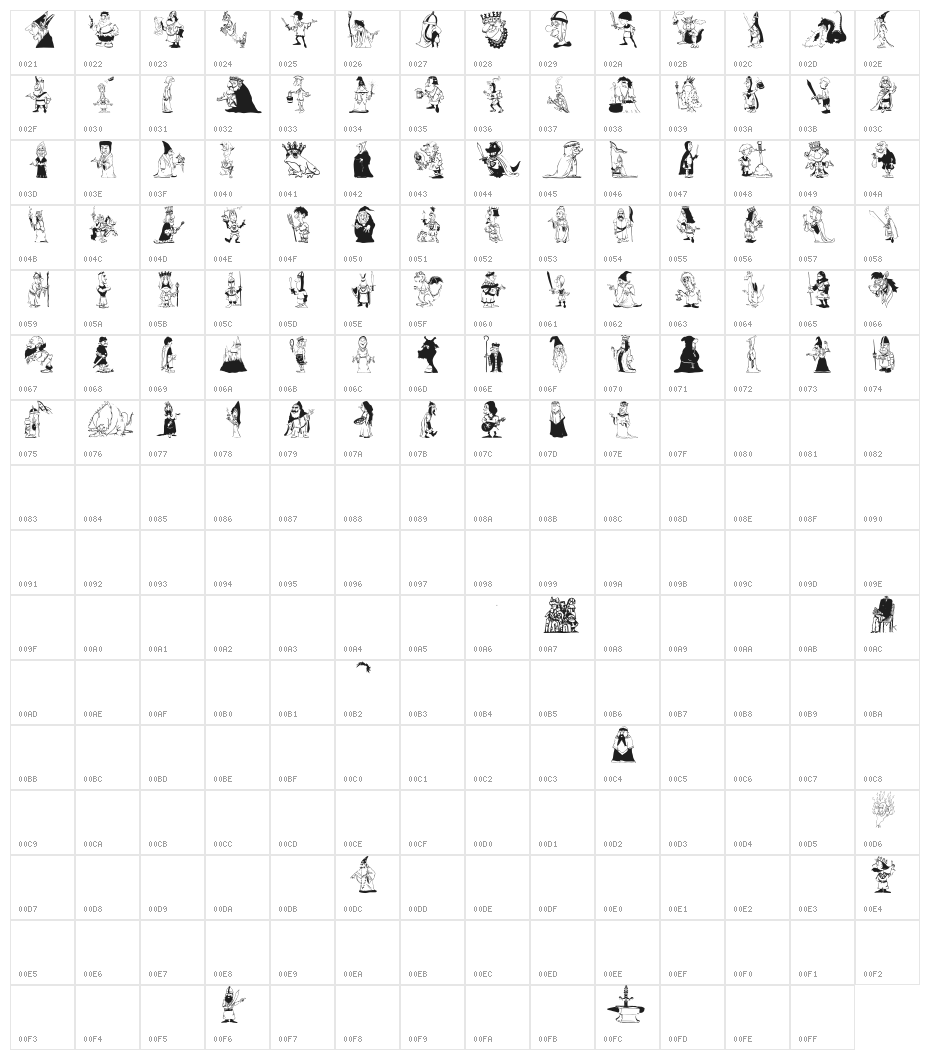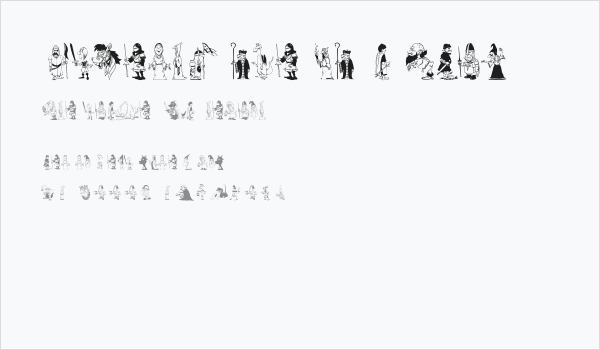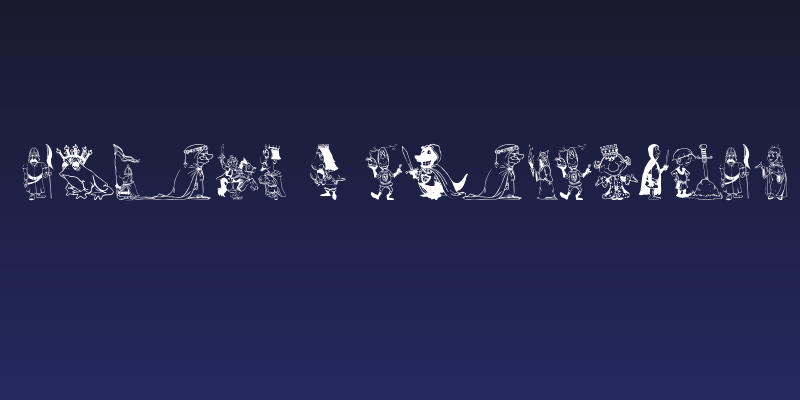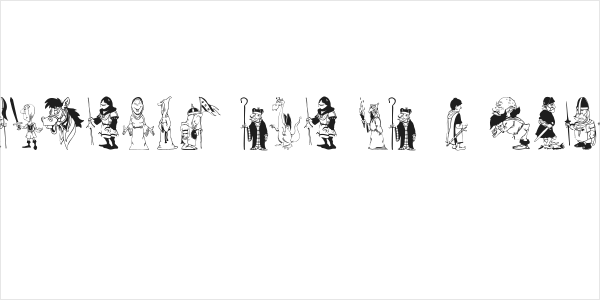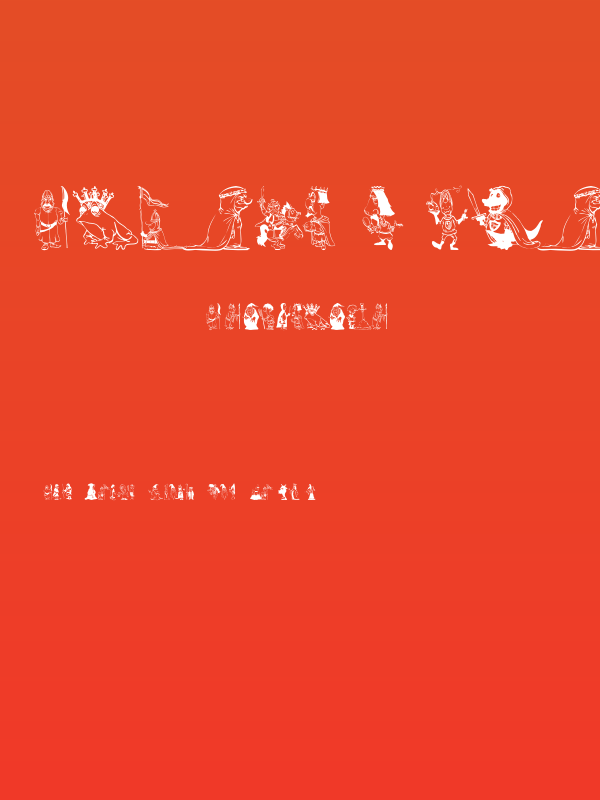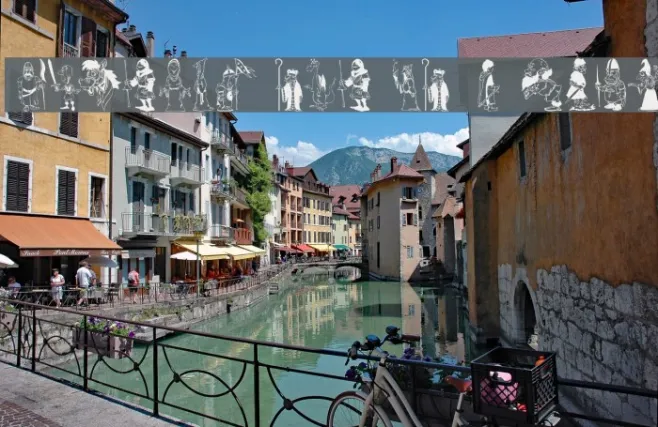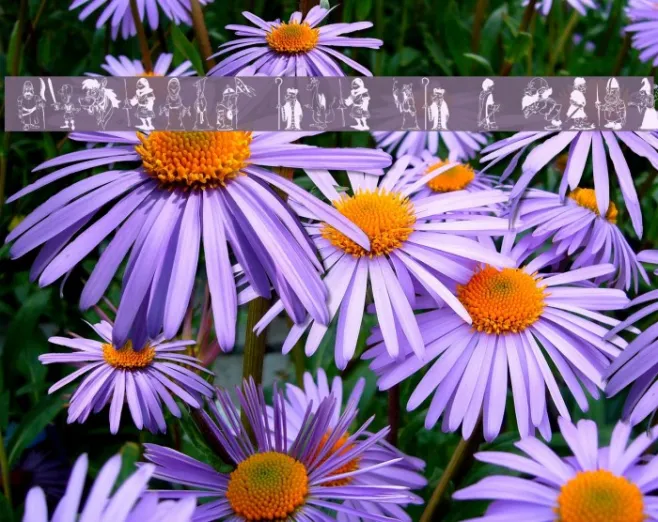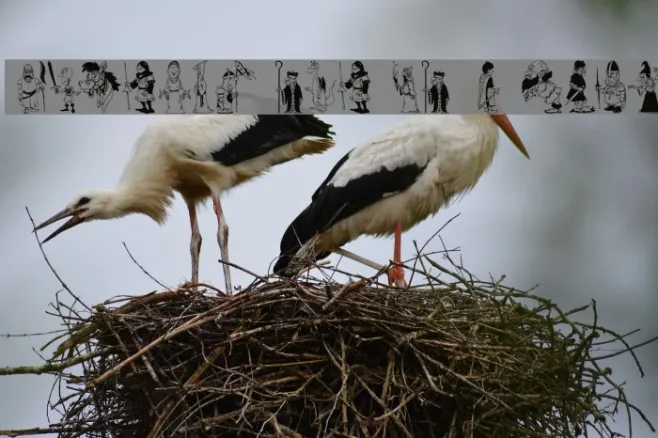
TafelrundeKnights Font
TafelrundeKnights Description
A highly decorative and whimsical display font composed of playful, cartoon-style medieval characters and knights, each representing a letter, number, or symbol. The glyphs are illustrated with unique, detailed figures in various poses and costumes, evoking a humorous and storybook-like atmosphere.
| Overall Style | Decorative, Whimsical, Playful, Fantasy |
| Use Case | Headlines, Logos, Posters, Themed Graphics |
| Proposed Projects | Children’s books, fantasy event posters, themed party invitations, board game titles, playful branding, educational materials. |